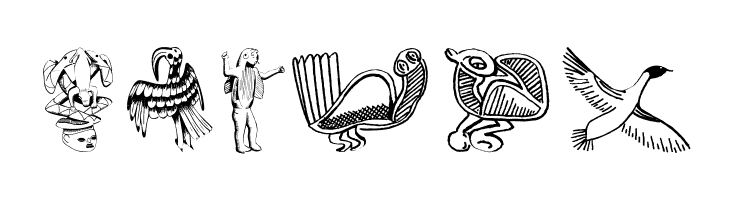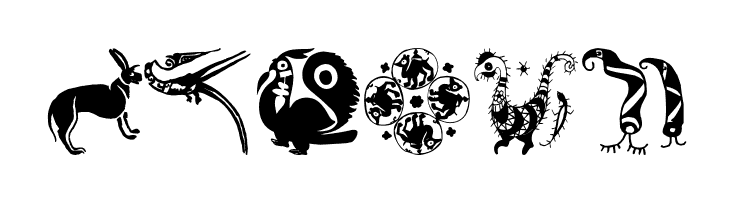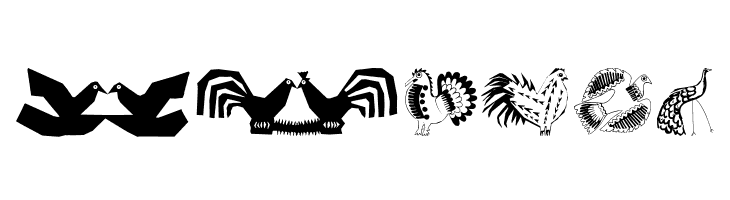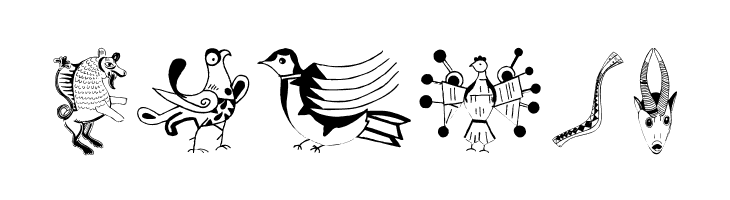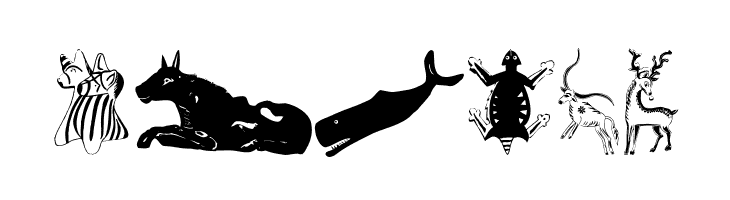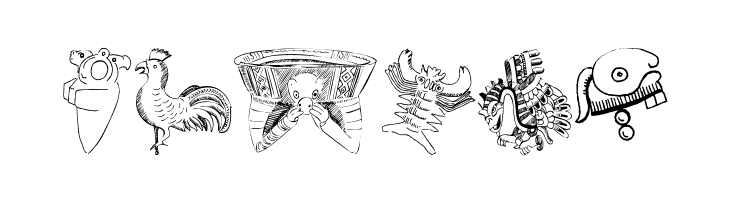
TribalDesignsQuattro Font
A collection of intricate tribal-inspired illustrations with bold, artistic motifs.
TribalDesignsDue Font
Decorative font with tribal and animal motif illustrations.
TribalDesigns_Tre Font
Ornamental pictogram font with tribal and folkloric motifs.
TribalDesignsOtto Font
A collection of tribal-inspired illustrations featuring animals and abstract figures with intricate patterns.
TribalDesignsCinque Font
Tribal-themed pictorial font with unique illustrative glyphs.
TribalDesignsUno Font
A decorative collection of tribal and mythical illustrations.
TribalDesignsSei Font
Intricate tribal designs featuring animal motifs and abstract forms with bold lines and cultural symbolism.